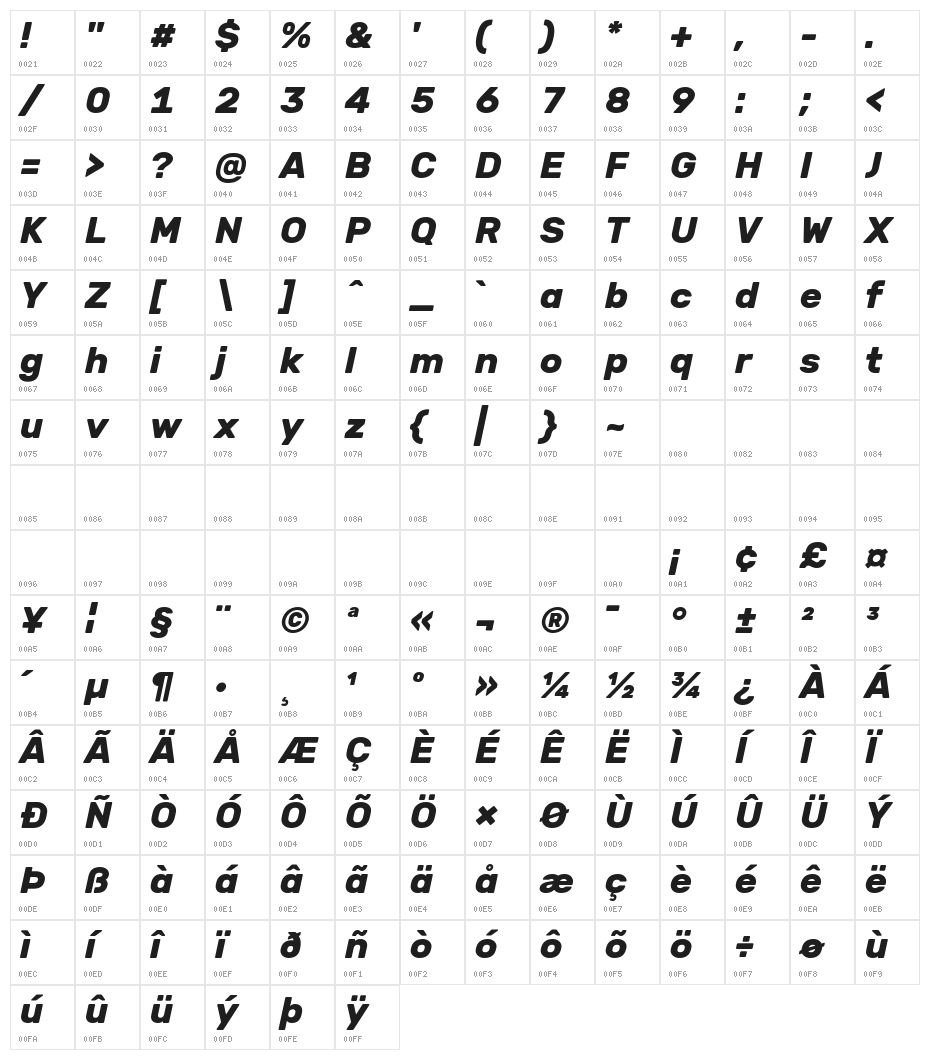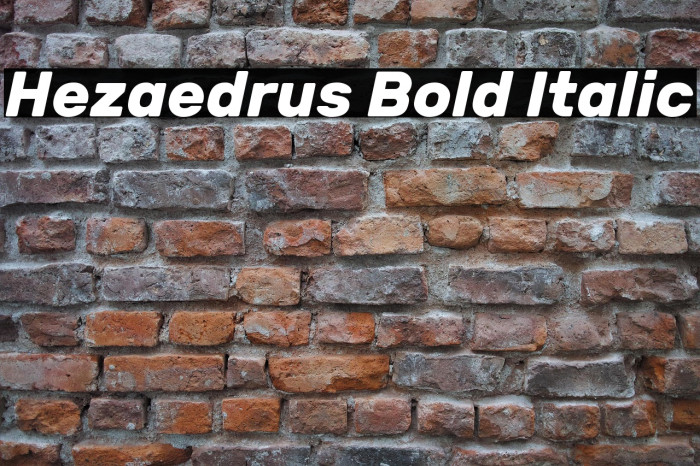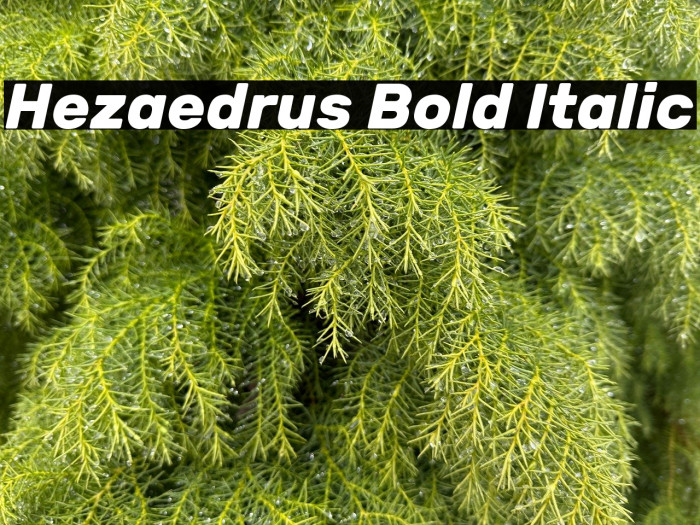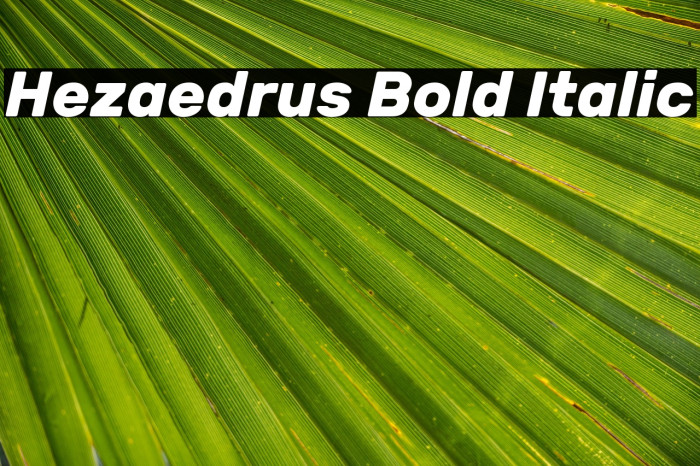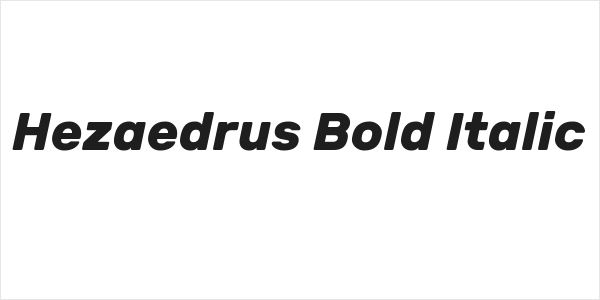
Hezaedrus Bold Italic Font
Hezaedrus Bold Italic Description
This font presents a bold and italicized style, characterized by its strong presence and dynamic slant. The uppercase and lowercase letters are well-defined, with a consistent stroke width that conveys a sense of stability and confidence. The numerals are clear and easily distinguishable, maintaining the bold aesthetic. Special characters are included, adding versatility to the font's application. Its design is modern and sleek, making it suitable for a variety of digital and print media. The italicization adds a touch of elegance and movement, enhancing its visual appeal.
| Use Case | Headlines, Logos, Advertising |
| Proposed Projects | Ideal for branding, advertising, headlines, and digital media where a strong and modern impression is desired. |